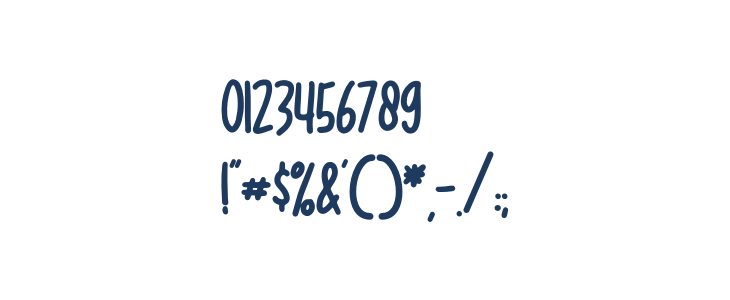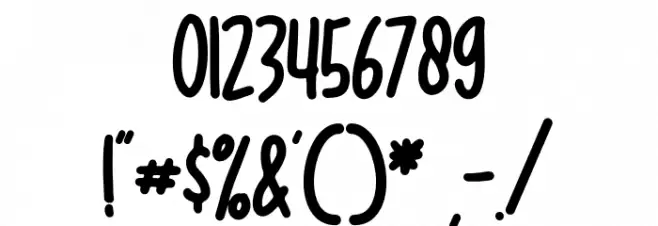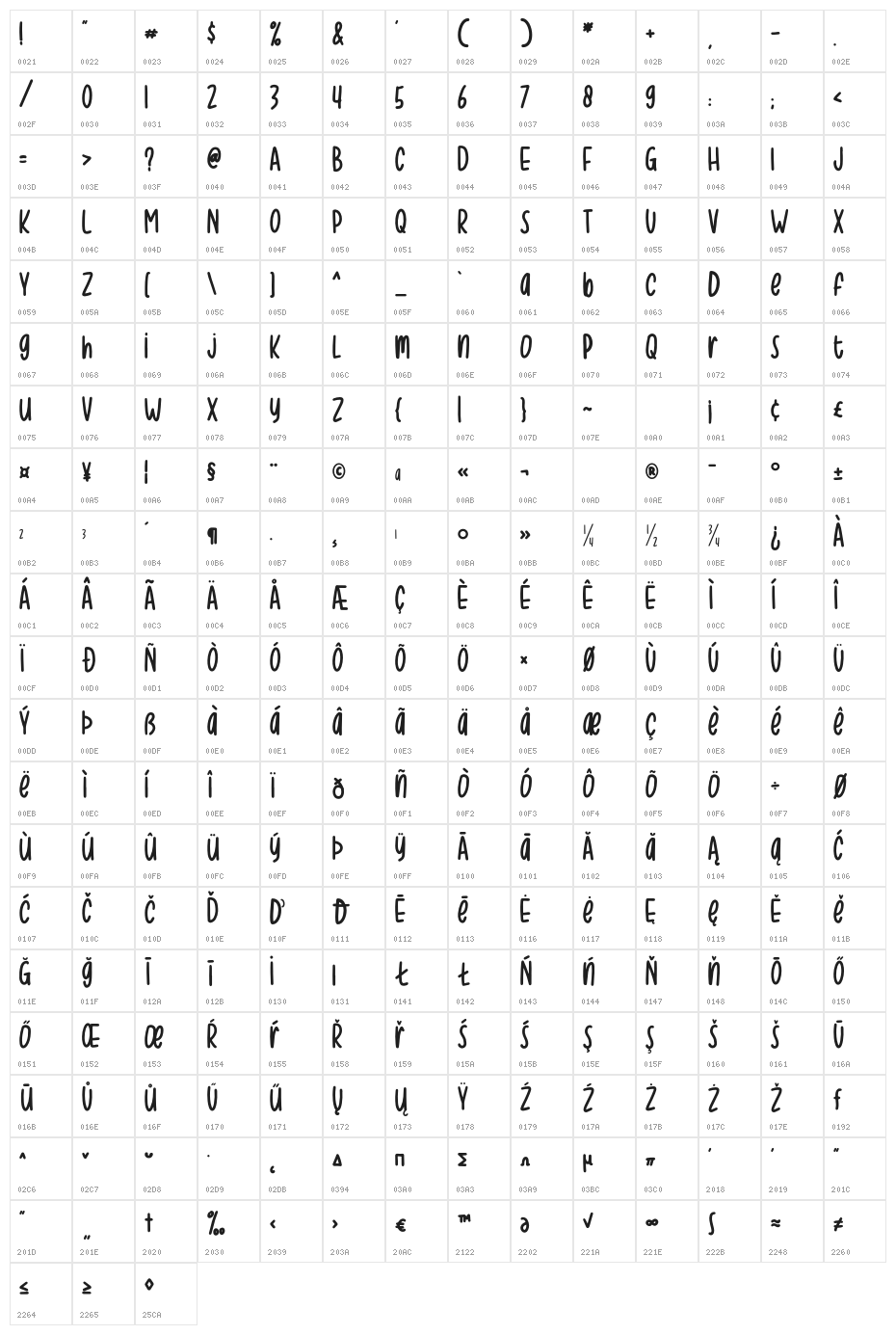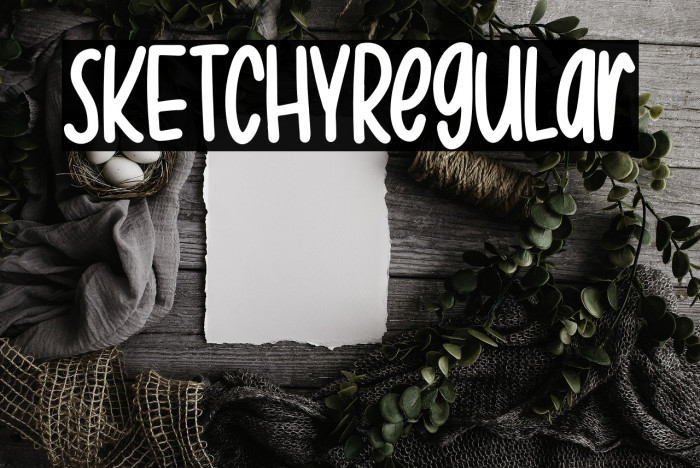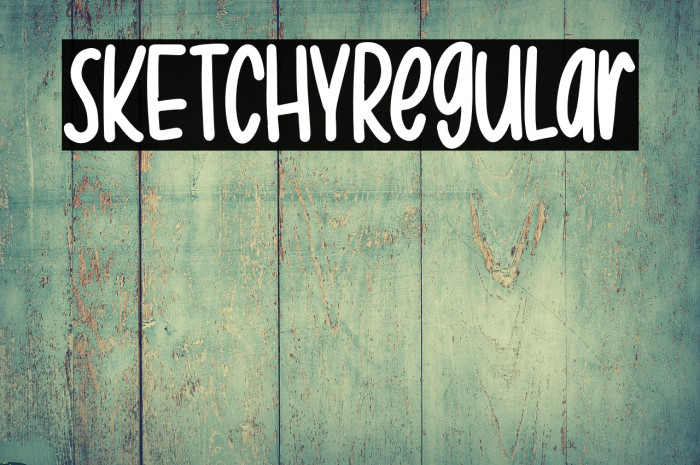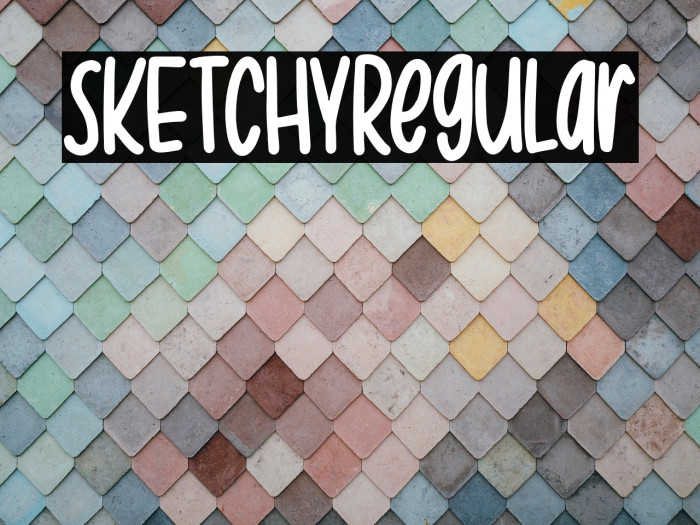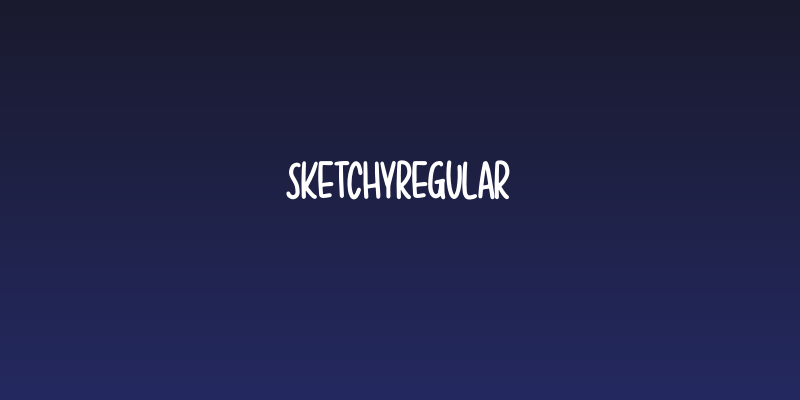
SKETCHYRegular Font
SKETCHYRegular Description
This playful and informal font features a hand-drawn aesthetic with smooth, rounded edges and a slightly irregular baseline, giving it a casual and friendly appearance. The characters are bold and slightly condensed, with a consistent stroke width that maintains readability while adding a touch of whimsy. The uppercase and lowercase letters are well-balanced, and the numerals are clear and distinct. Special characters are included, enhancing the font's versatility for various design needs. Its sketch-like quality makes it ideal for projects that require a personal, approachable touch.